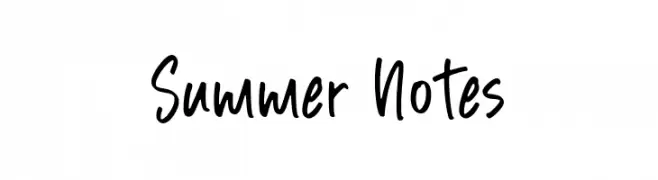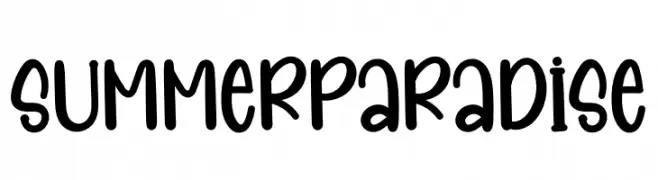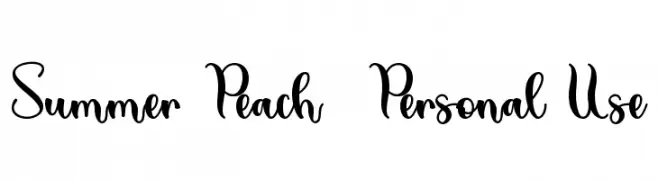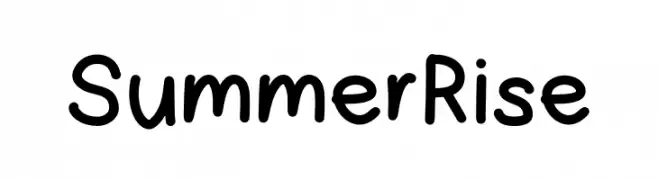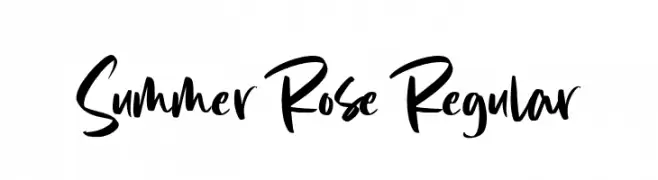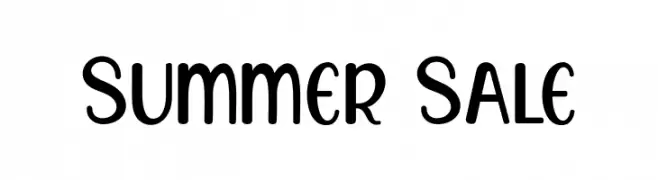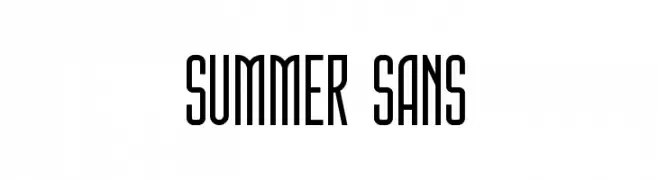
A casual, handwritten font with smooth, fluid strokes and a relaxed vibe.
A playful, bold font with rounded, smooth letterforms and a whimsical, handwritten style.
A playful and whimsical script font with a handwritten style.
A casual, elegant handwritten font with fluid, connected letters.
Elegant handwritten script font.
A playful, casual handwritten font with rounded, consistent strokes.
A bold, expressive handwritten font with fluid strokes and dynamic style.
A playful, bold font with rounded edges and a friendly style.
A tall, narrow, and modern font with a sleek, minimalistic design.